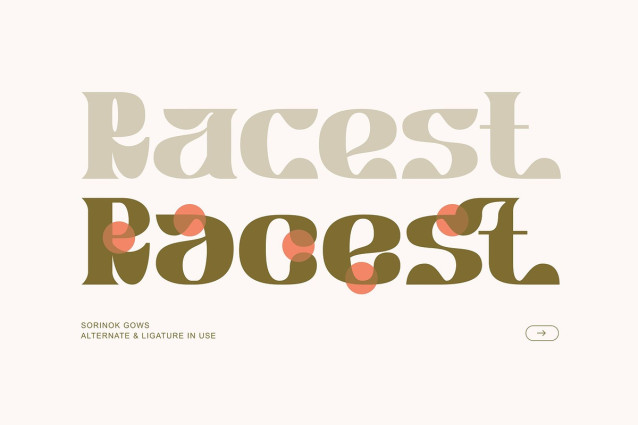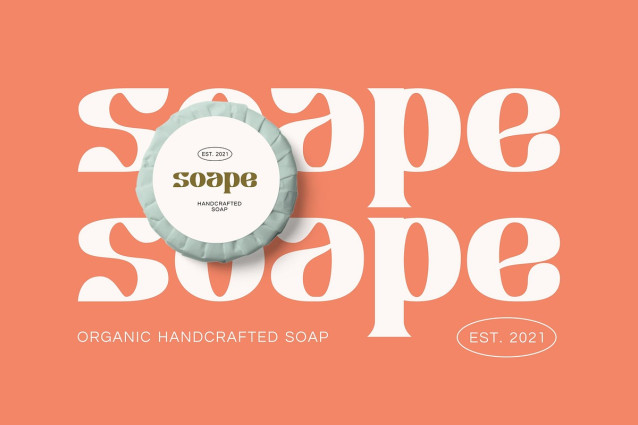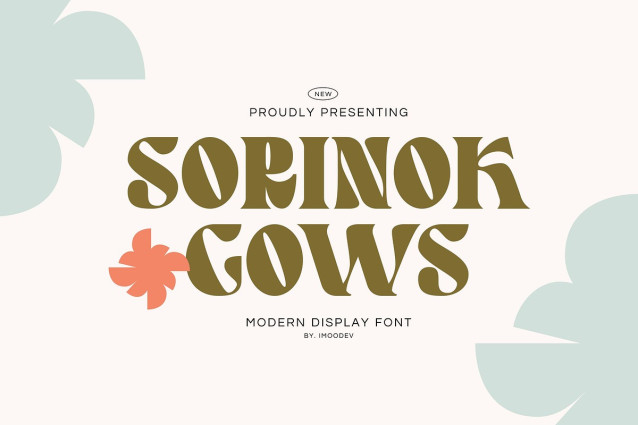
Sorinok Gows Font
Sorinok Gows Font is a organic and groovy display font with a modern retro twist! The letterforms are wide and chunky with high contrast strokes, soft rounded corners, and flared wedge serifs. Petal shaped cutouts, creating a playful, almost floral rhythm that feels handcrafted and organic.
This font mixes 70s psychedelic vibes with modern minimalism, making it perfect for branding, packaging, posters, and lifestyle products that want to stand out with a funky yet polished personality.